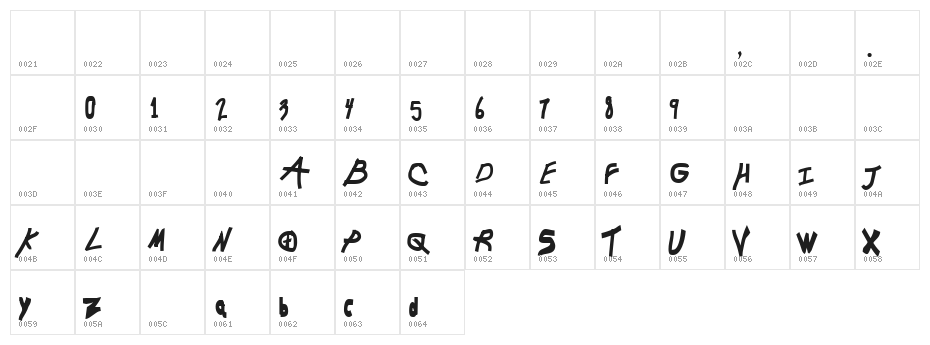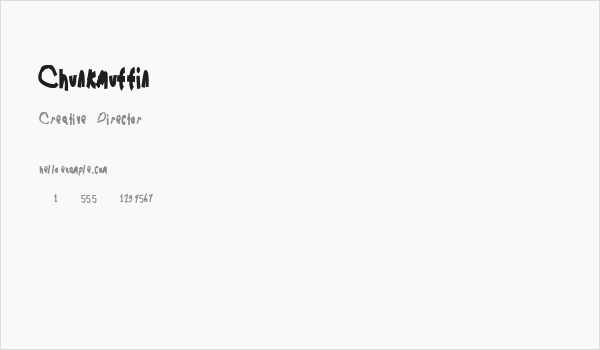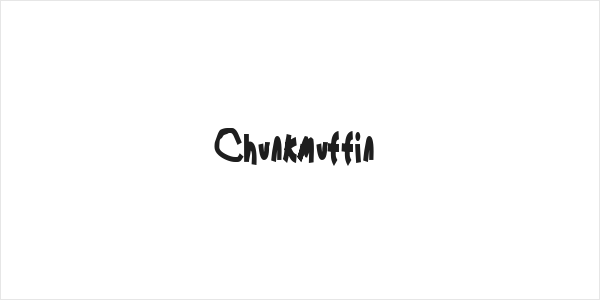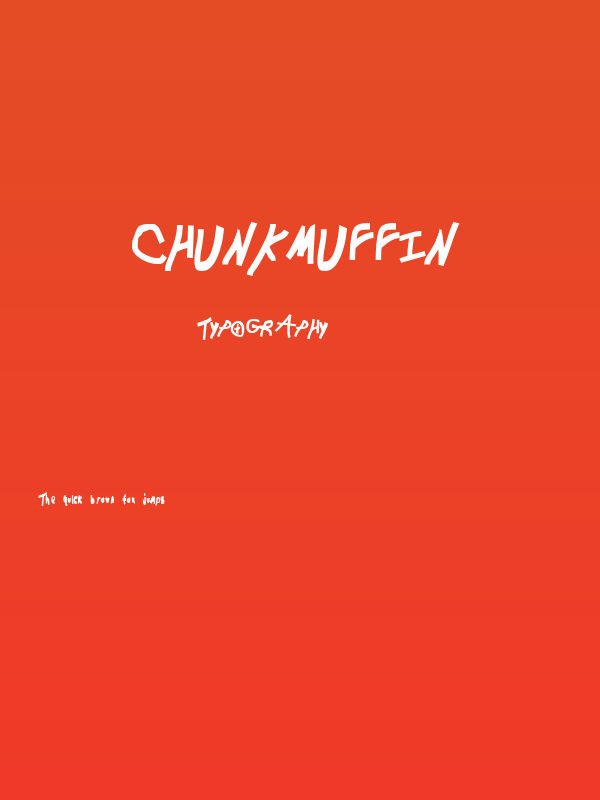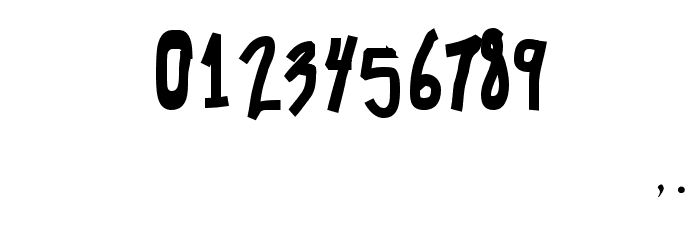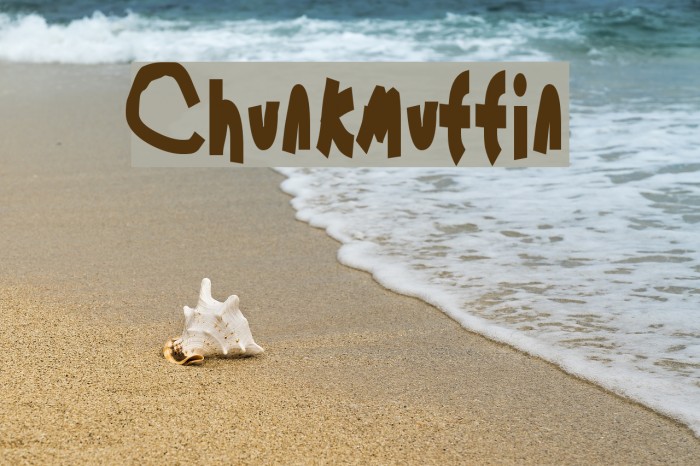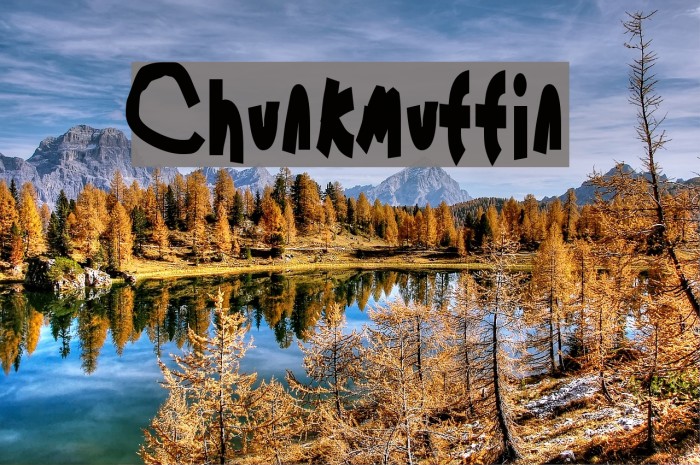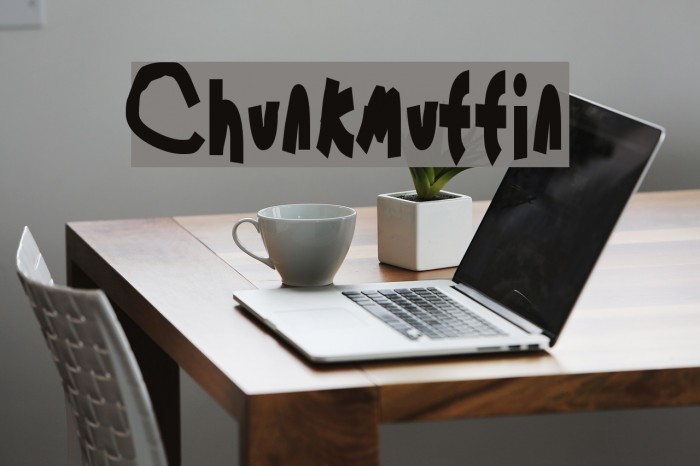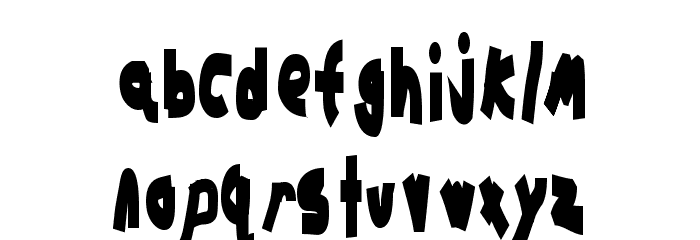
Chunkmuffin Font
Chunkmuffin Description
This font features a bold and playful design with a distinctly irregular and quirky style. The characters exhibit a hand-drawn appearance, with varying stroke thickness and a slightly tilted orientation, giving it a dynamic and energetic feel. The uppercase letters are particularly bold and angular, while the lowercase letters maintain a consistent playful aesthetic. The numerals and special characters follow the same whimsical theme, making the font suitable for creative and informal applications. Its unique style makes it stand out, perfect for projects that require a touch of fun and creativity.
| Overall Style | Playful and Energetic |
| Use Case | Headlines, Posters, Creative Branding |
| Proposed Projects | Ideal for children's books, comic strips, playful branding, and creative posters. |